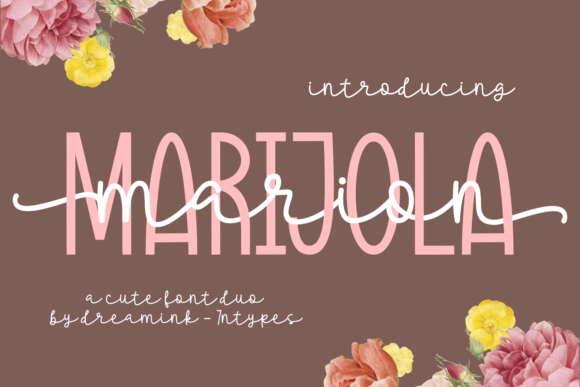
Introducing Marion Marijola Font, an exquisite duo font family that will grace your designs with elegance and charm. This stunning creation by Dreamink (7ntypes) harmoniously blends a clean sans serif font with a captivating script font, providing you with endless possibilities for creative expression.
As a food blogger, you understand the importance of visual appeal in capturing your audience's attention. Marion Marijola Font is the perfect tool to elevate your blog's aesthetic and make your culinary creations shine. With its delicate curves and playful swashes, this font will transform your recipes into works of art, inviting your readers to savor every word.
The sans serif font exudes a modern and minimalist vibe, providing a solid foundation for your blog posts. Its clean lines and crisp edges ensure that your text remains legible and easy to read, even on smaller screens. The script font, on the other hand, adds a touch of whimsy and sophistication, perfect for highlighting key ingredients, recipe titles, or inspirational quotes.
But Marion Marijola Font is not just aesthetically pleasing; it's also highly versatile. Whether you're creating blog posts, social media graphics, or eye-catching email newsletters, this font family has you covered. Its adaptability extends to various design styles, from classic and elegant to rustic and charming.
With Marion Marijola Font, you have the power to transform your food blog into a visual feast. Its enchanting aura will captivate your audience, leaving them craving more of your culinary adventures. So, why settle for ordinary fonts when you can indulge in the extraordinary?